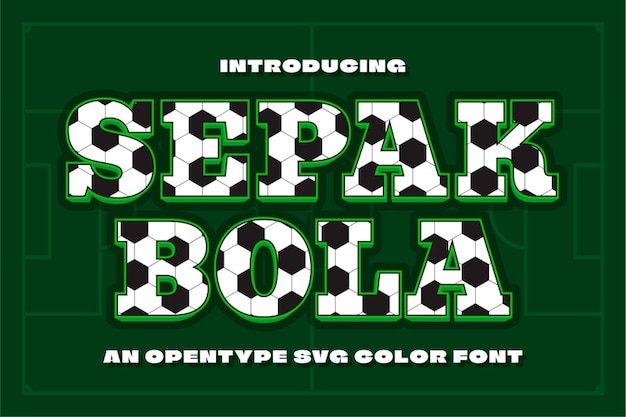
Sepak Bola is a dynamic, sporty font inspired by the fast-paced energy of soccer. With its bold, angular letters and subtle references to a soccer ball, it captures the excitement and movement of the game. Perfect for sports logos, team jerseys, or promotional materials, Sepak Bola brings the spirit of soccer to every design with strength and agility.